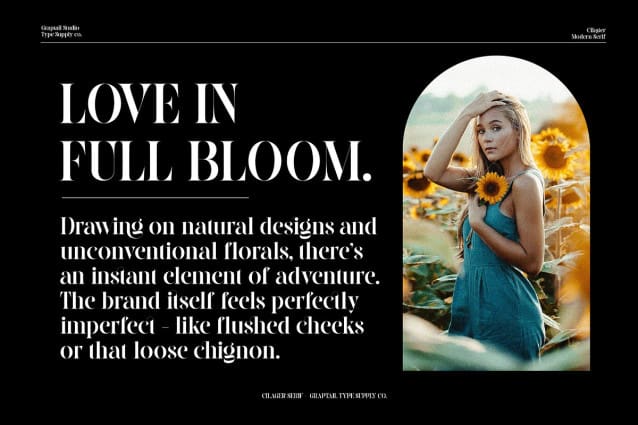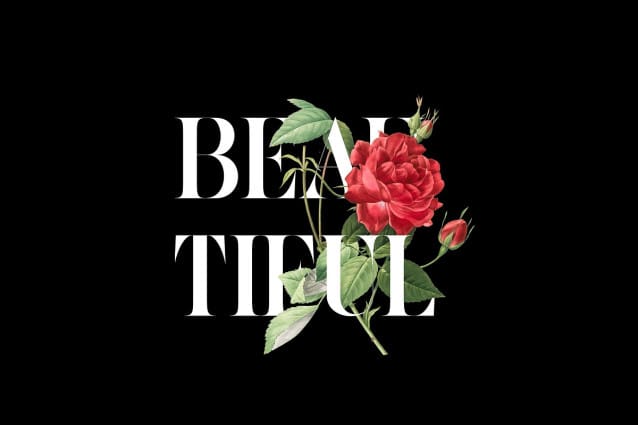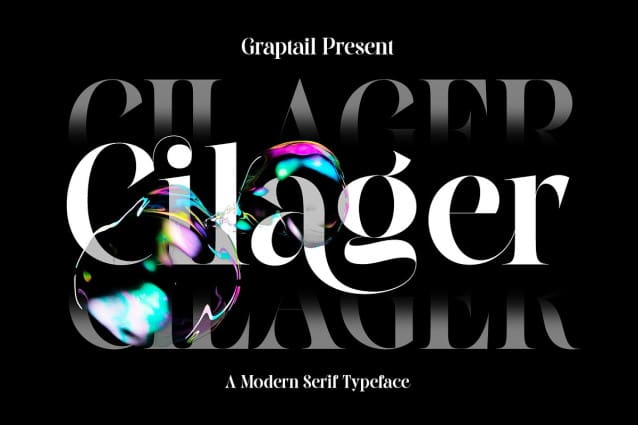
Cilager Font
Cilager Font is a Modern Serif Typeface that gives a romantic feel to every curve. With 26 Ligatures which are included, it is very helpful in creating the title of each of your project such as Logos, greeting cards, quotes, posters, branding, business cards, postcards, movie titles, blog headers, art quotes, typography, magazines and more.